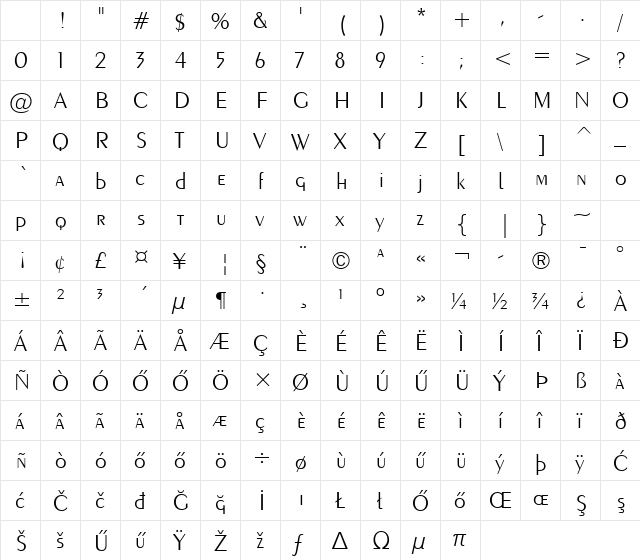
Complete Huni_Exotr Regular glyph index. Displaying only characters natively supported by Huni_Exotr Regular font.
Huni_Exotr is a composed and adaptable typeface that performs quietly and consistently across a wide range of design contexts.